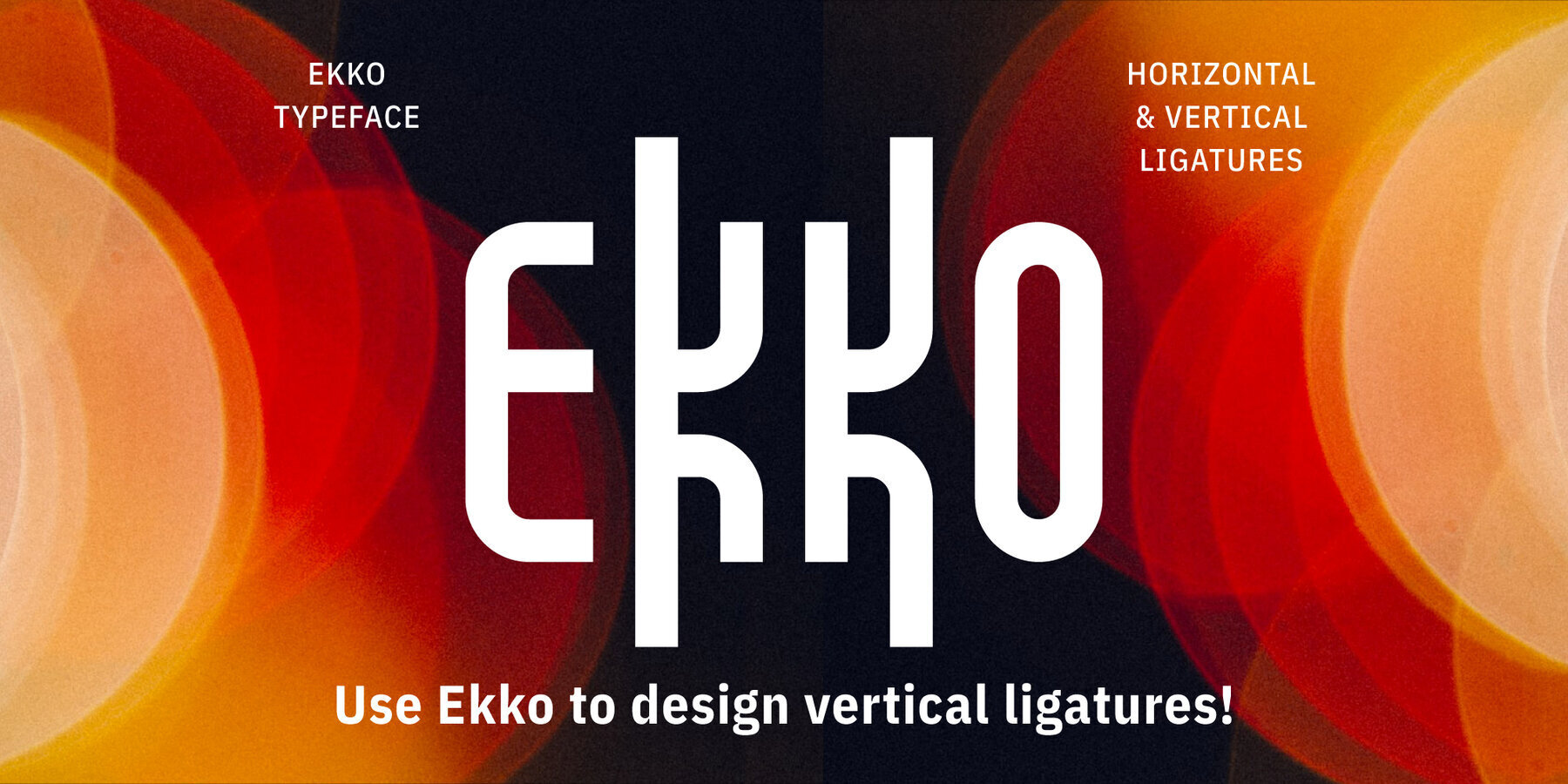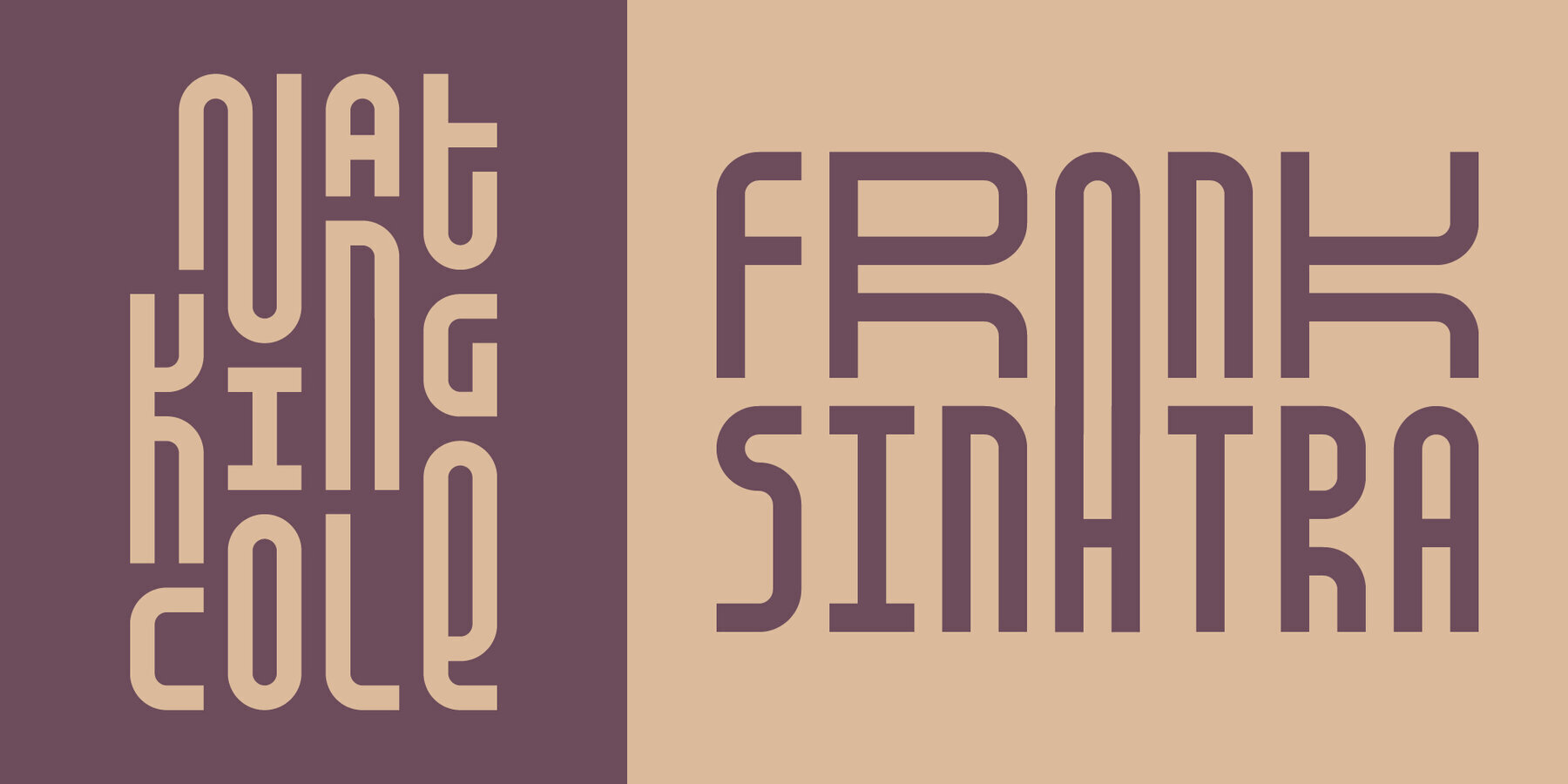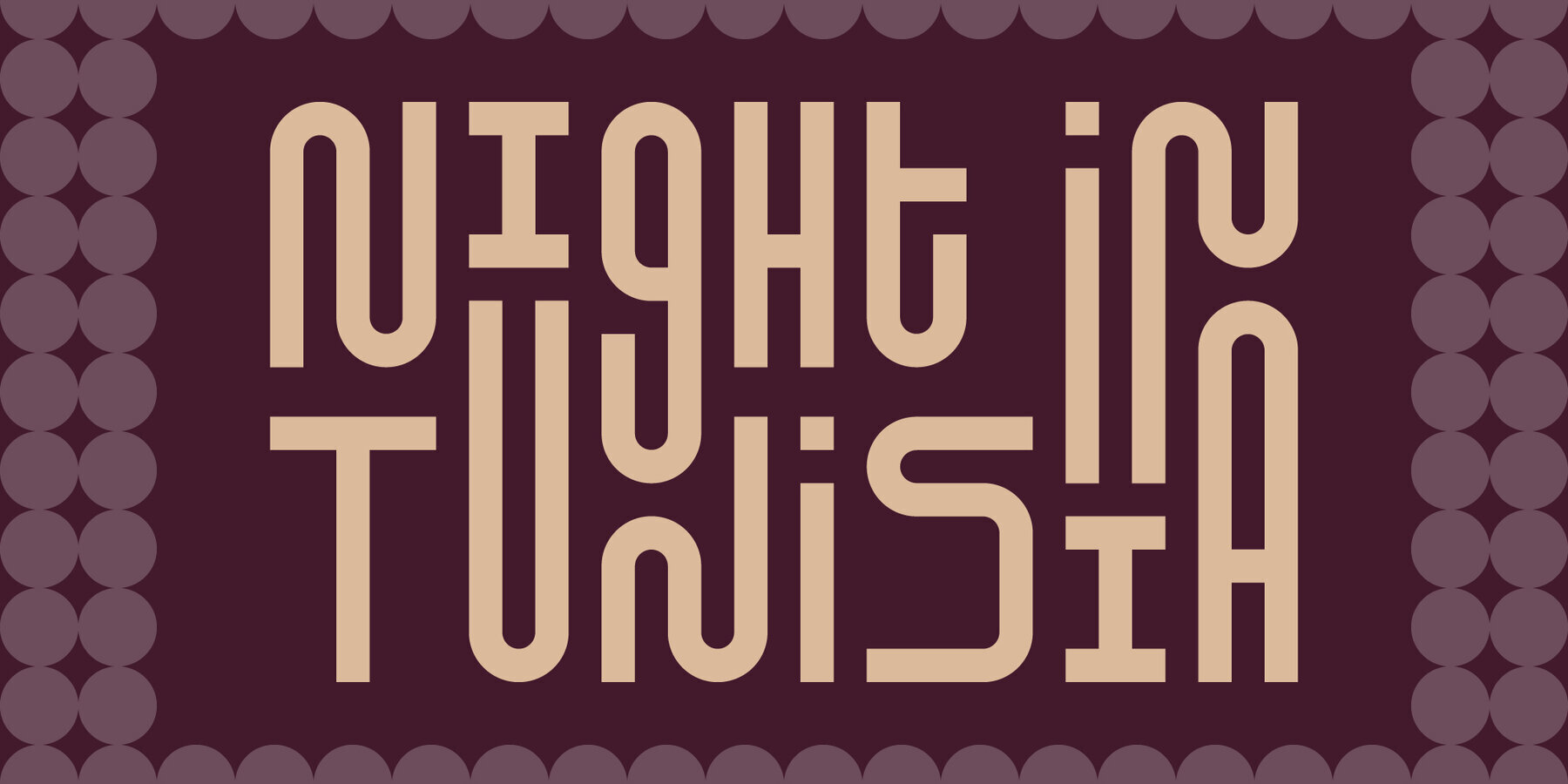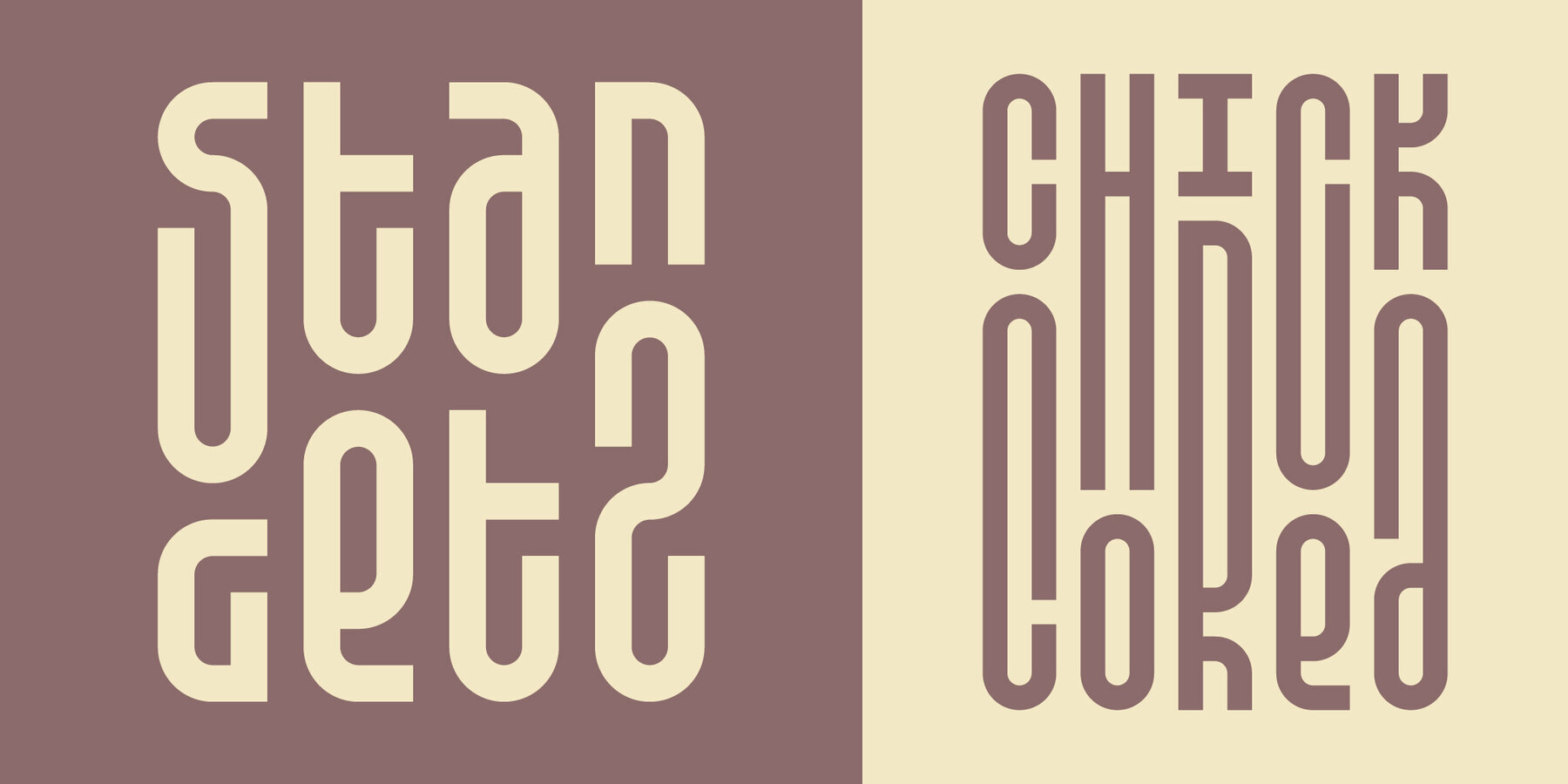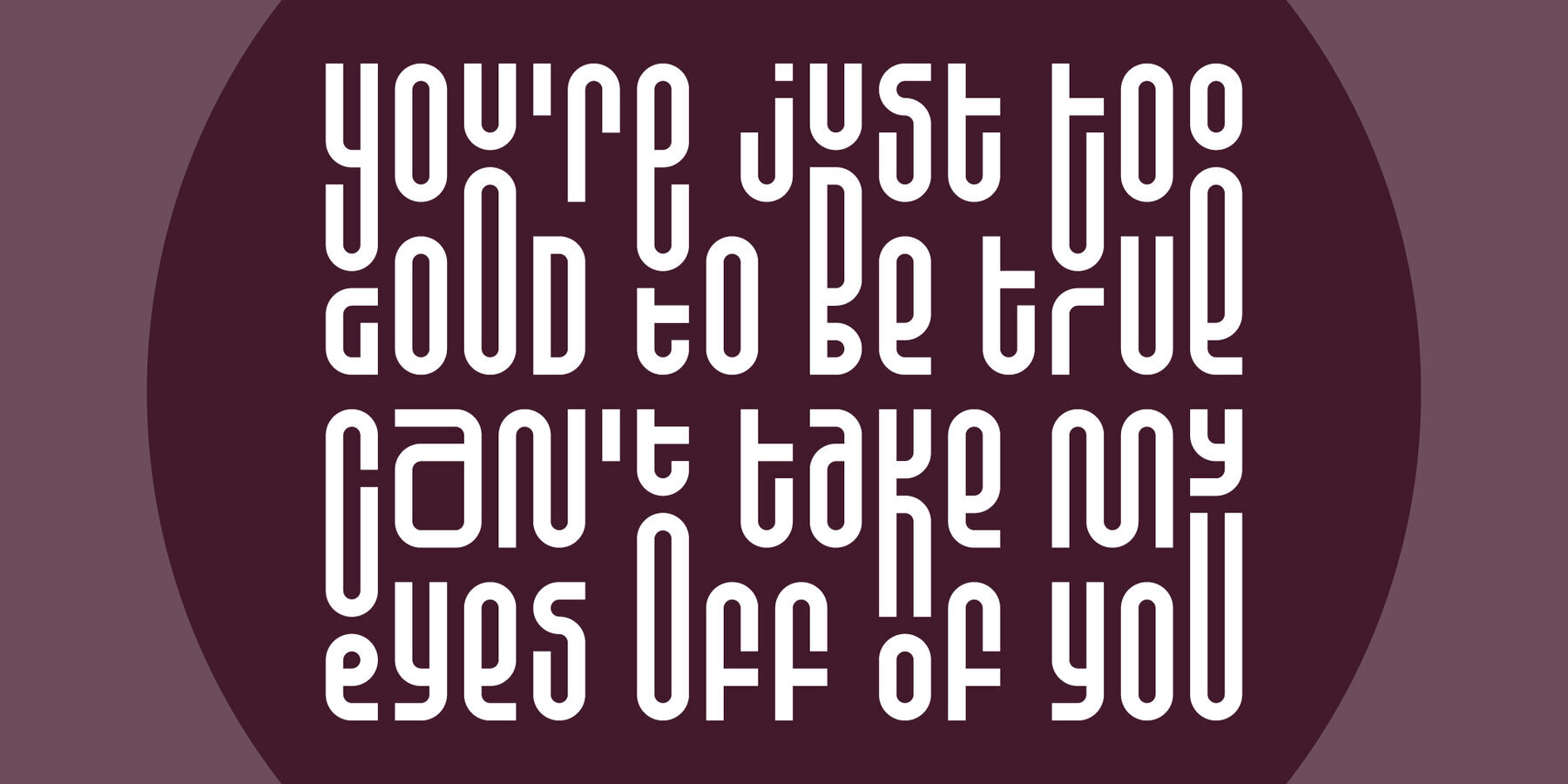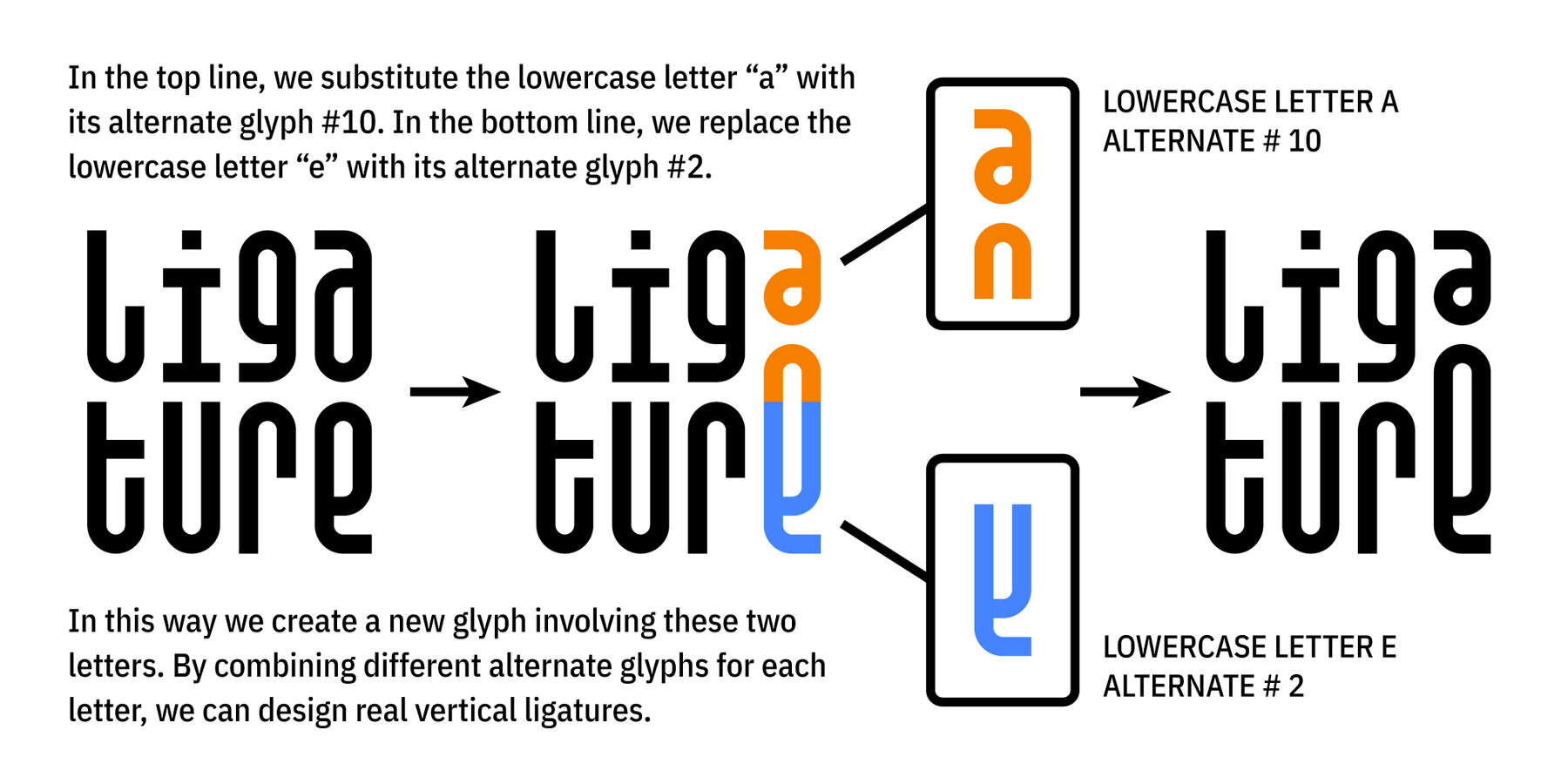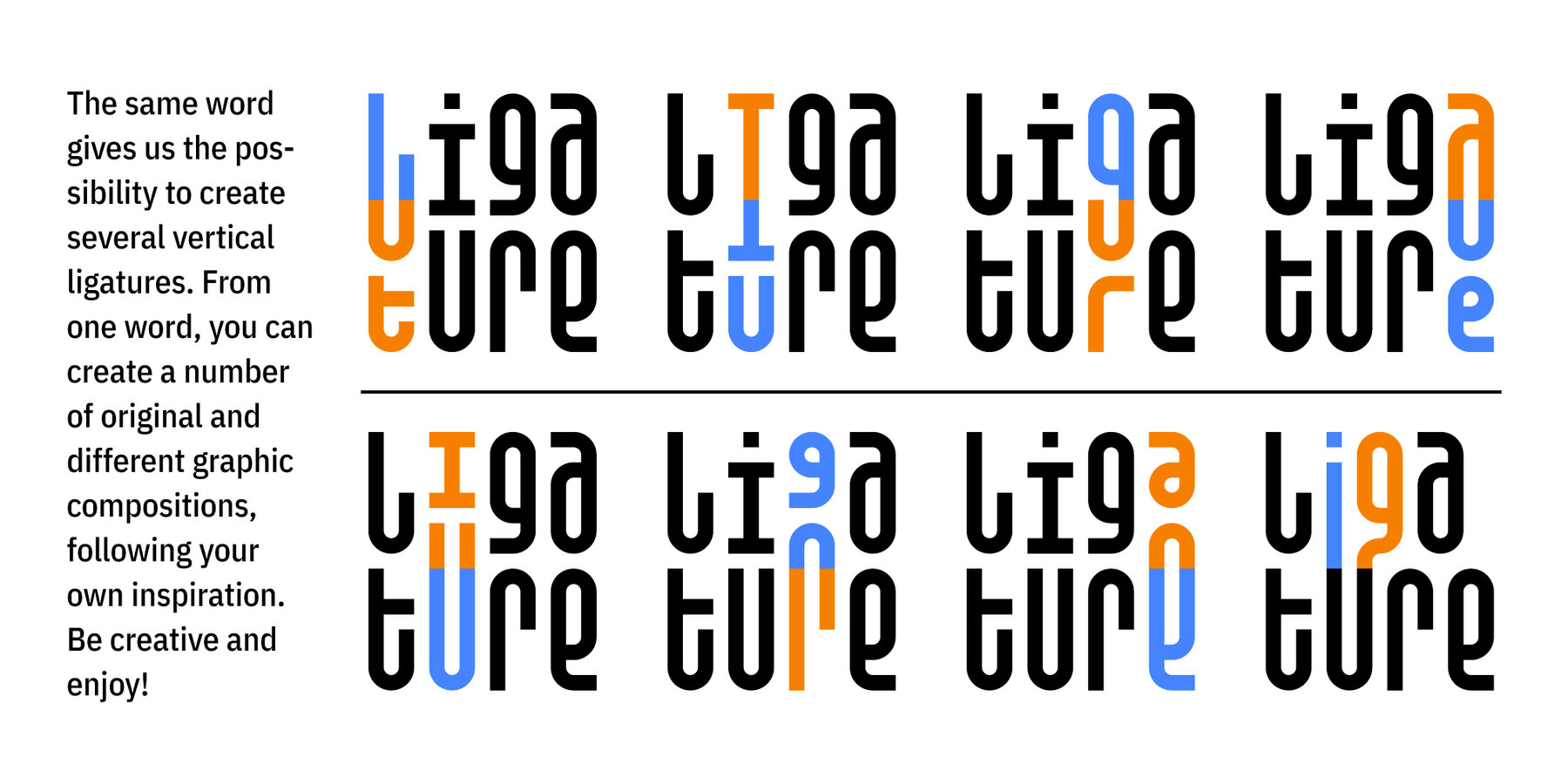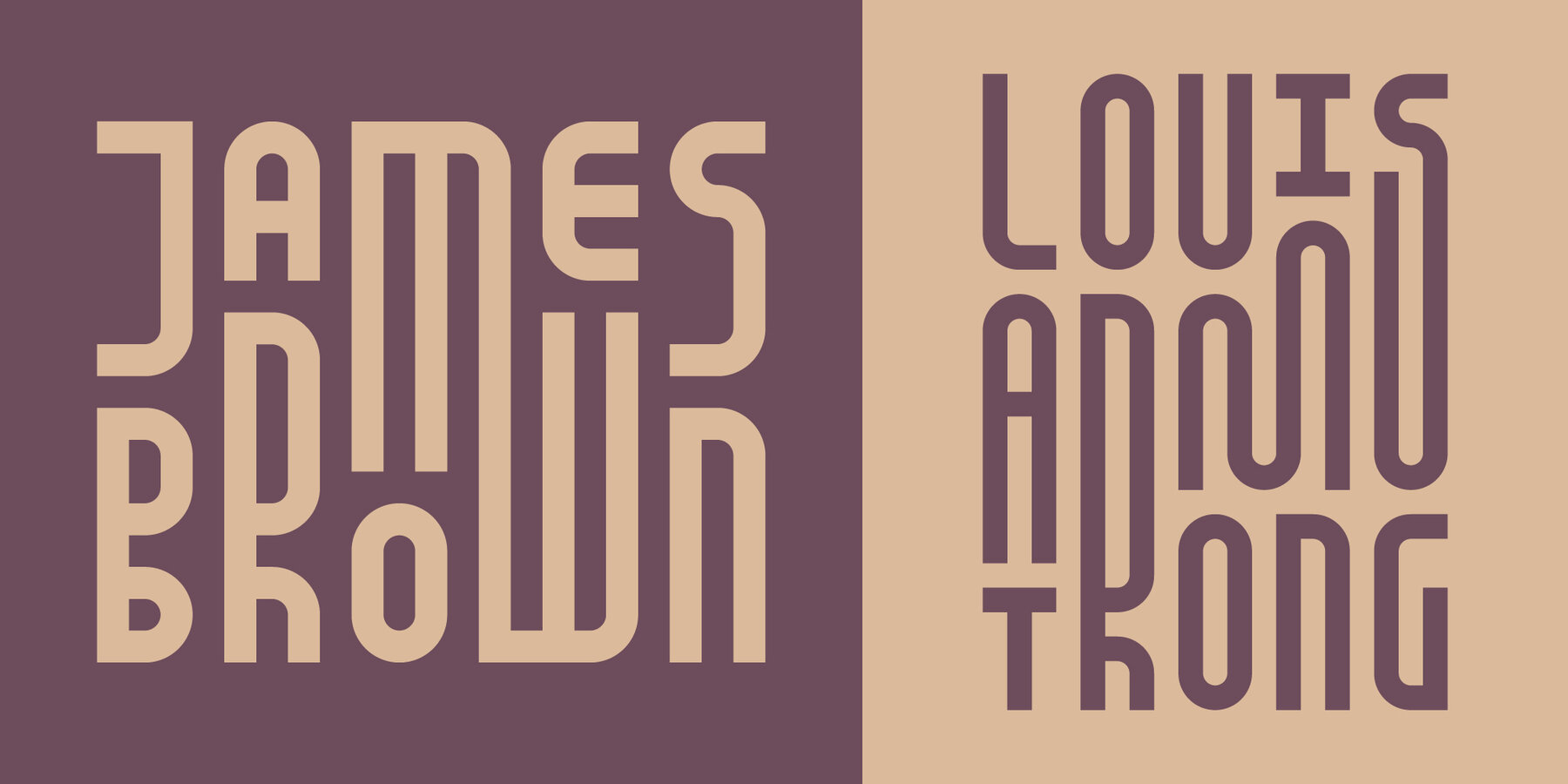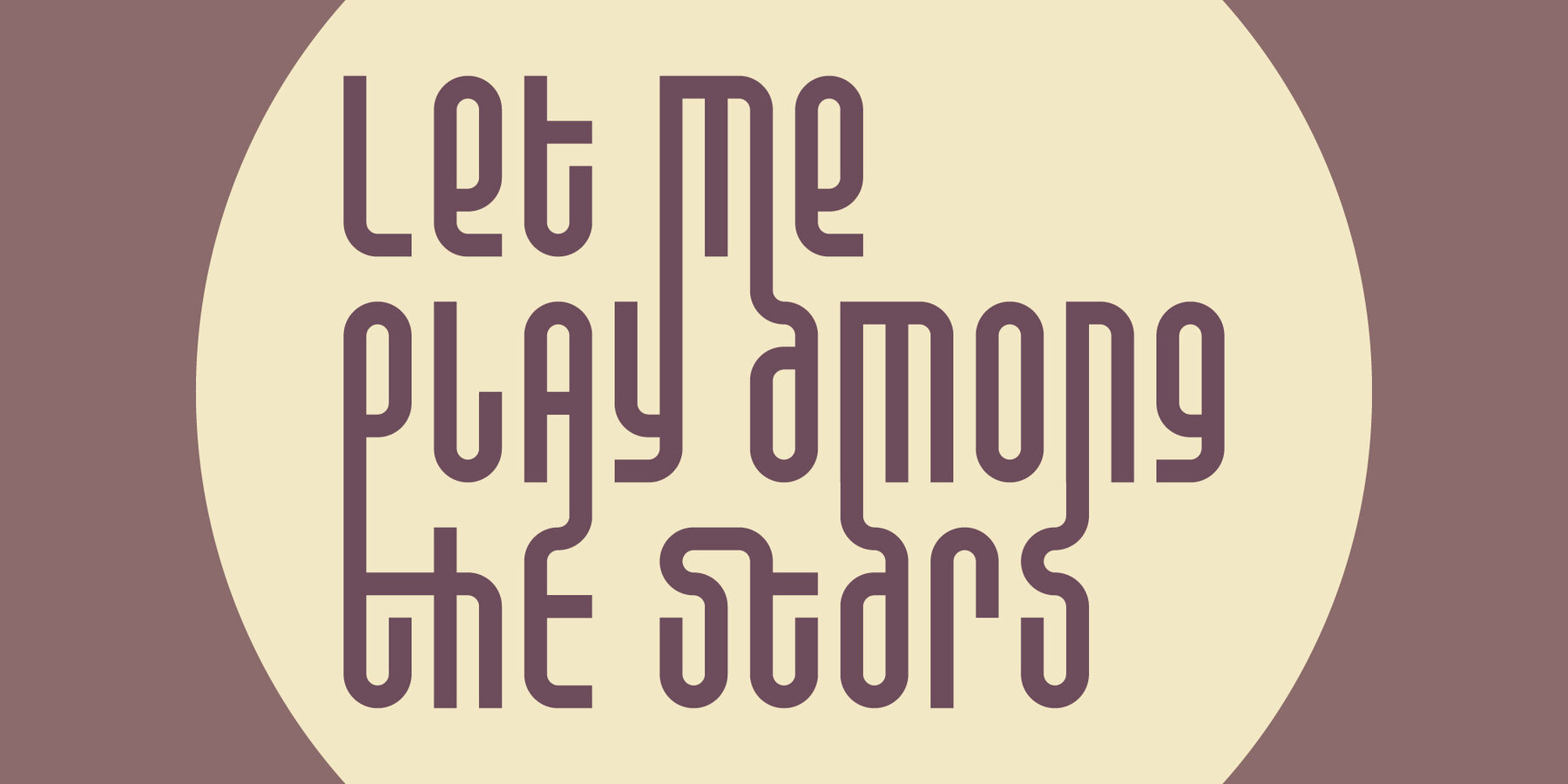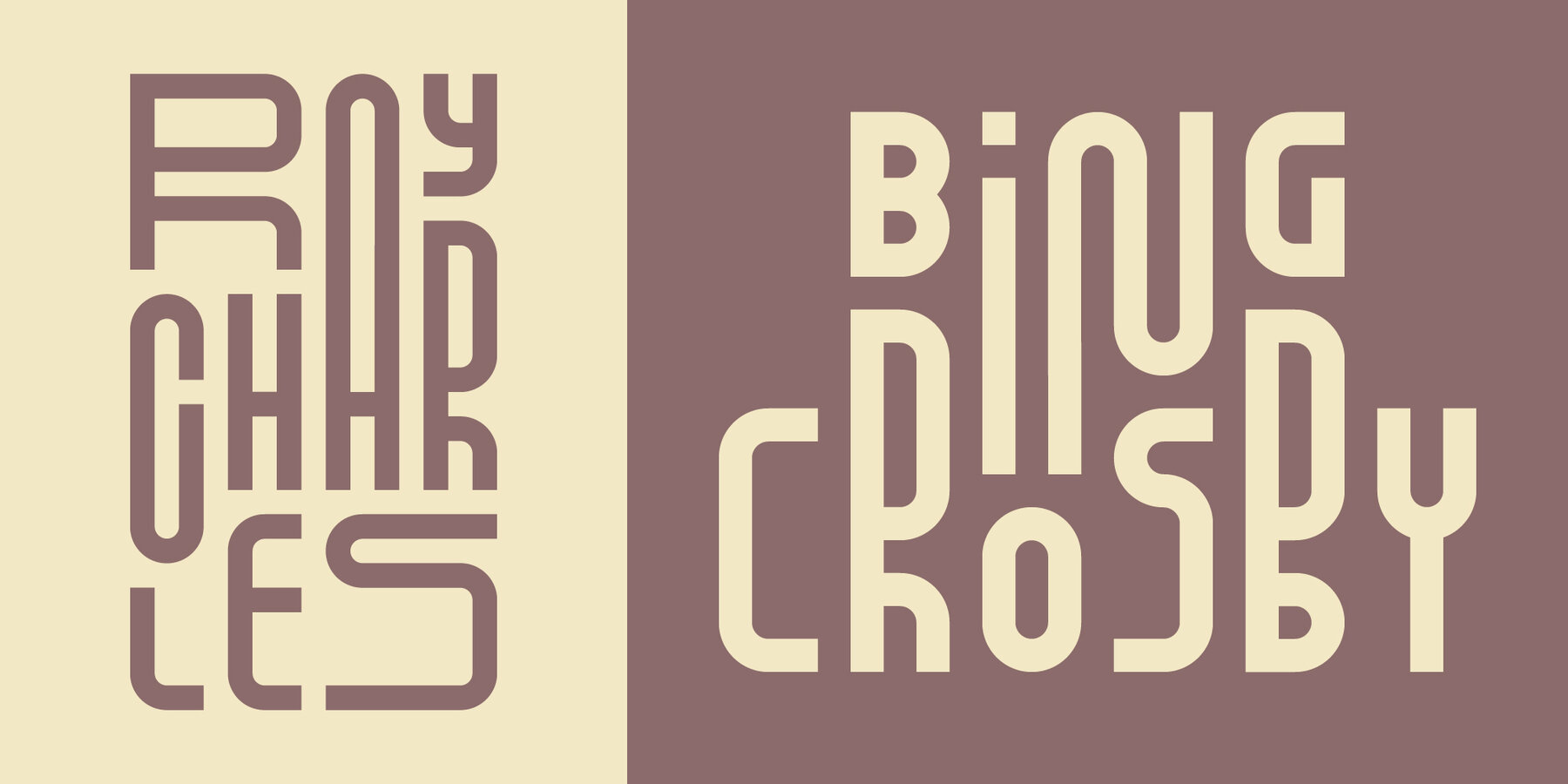
Ekko
With a set of more than 1300 alternate glyphs, the Ekko typeface gives you tools to be creative. By combining these alternate glyphs between them, you can design real vertical ligatures. Ekko offers a wide range of graphic possibilities and gives you the opportunity to play, experiment and discover, in order to associate the various vertical ligatures among them, in a balanced and harmonious way. Thus, Ekko provides you the possibility to express the musicality of each word, and to give a specific, original and unique rhythm to each composition. In line with the spirit of jazz music, in which nothing is predefined, but everything remains open. Be creative and enjoy!
We recommend that you use Ekko with a line spacing suitable to the font size with a ratio between 0,54 and 0,6. For example, if the font size is 100 pts, the best line spacing will be between 54 and 60 pts.
In order to give the best flexibility to Ekko, you can also find, through other alternate glyphs, different widths for each letter (except: M, N, V and W in uppercase). Each letter, lowercase and uppercase combined, is thus available in dimensions: 3x8, 5x8 and 7x8.
Ekko also contains 28 horizontal ligatures.
Ekko was designed by Jérémy Ruiz – L'île Foundry / Milano, 2022